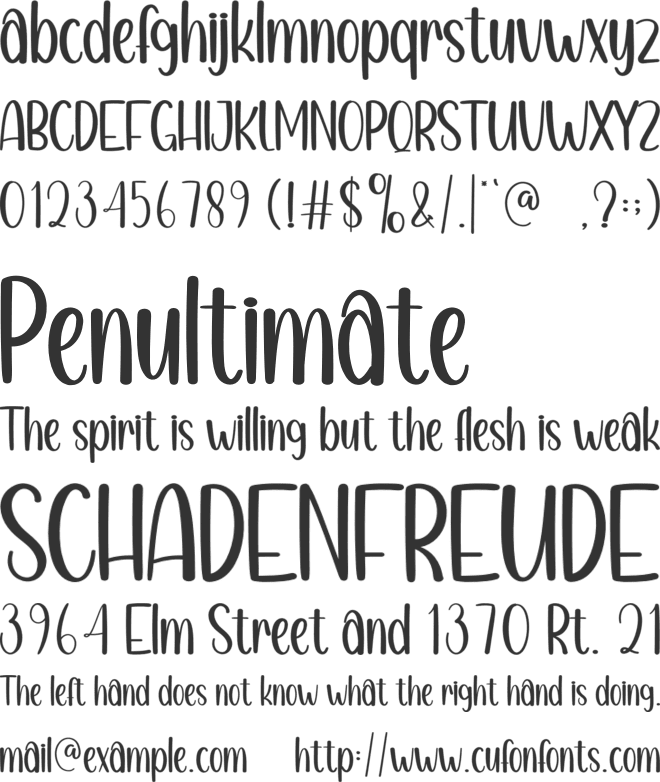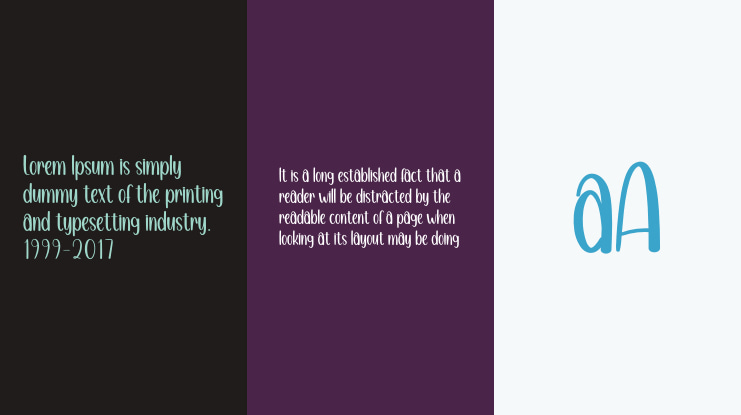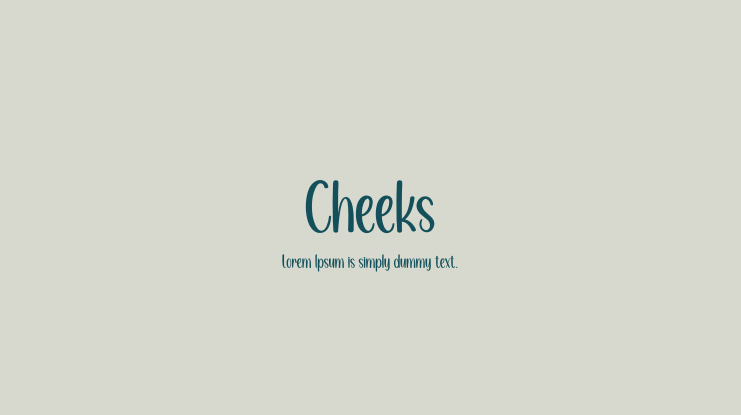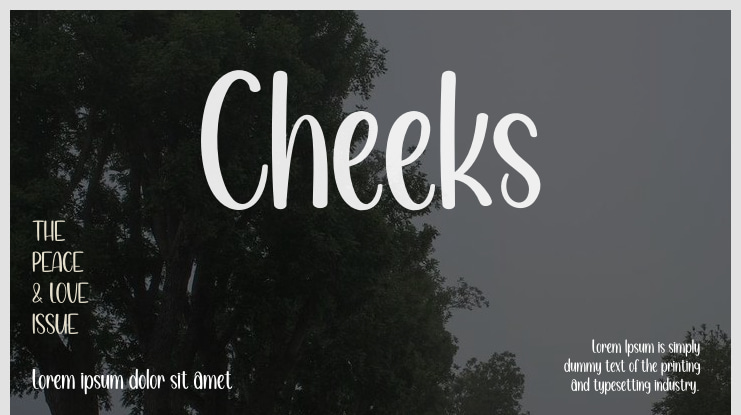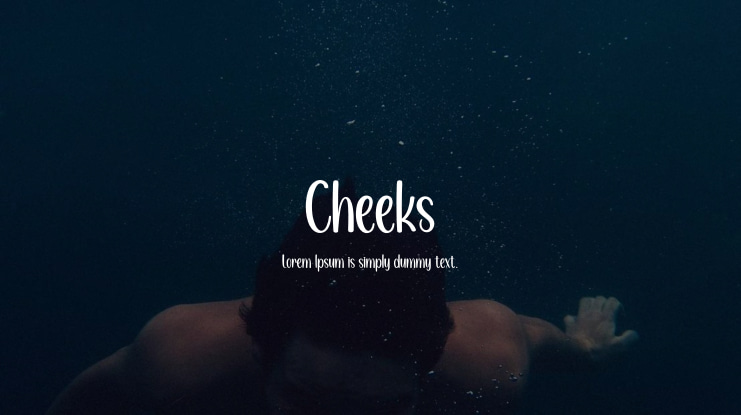
Cheeks Font
This is a sweet and friendly handwritten display font. Cute and fun, this font is ideal for writing wedding invitations, cards, or any other design that might need a playful touch! Visit the following website for commercial purchases: [https://scratchones.com](https://scratchones.com). Alternatively, you can contact the following email if you have questions, or for custom fonts, adding font glyphs, editing fonts, and other commercial inquiries:
Cheeks font preview